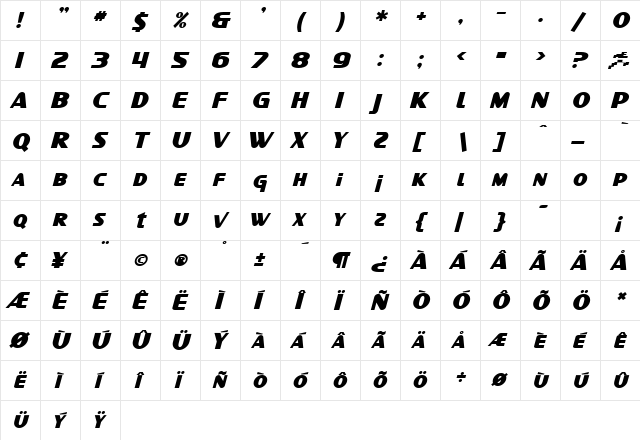
SF Intellivised Bold Italic
Design Context for SF Intellivised Typeface
SF Intellivised takes a measured approach to typography — its balanced proportions and neutral character make it a reliable workhorse for both digital and print work. The slanted form adds forward momentum and visual energy. The heavy weight commands attention and anchors typographic hierarchies.